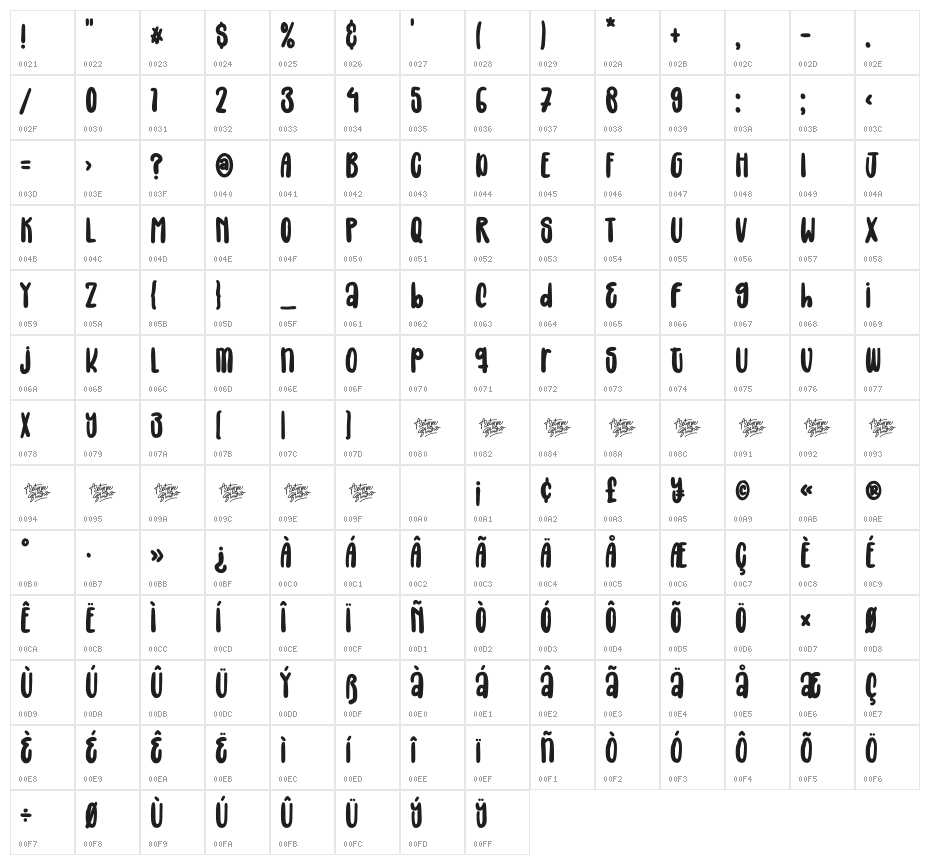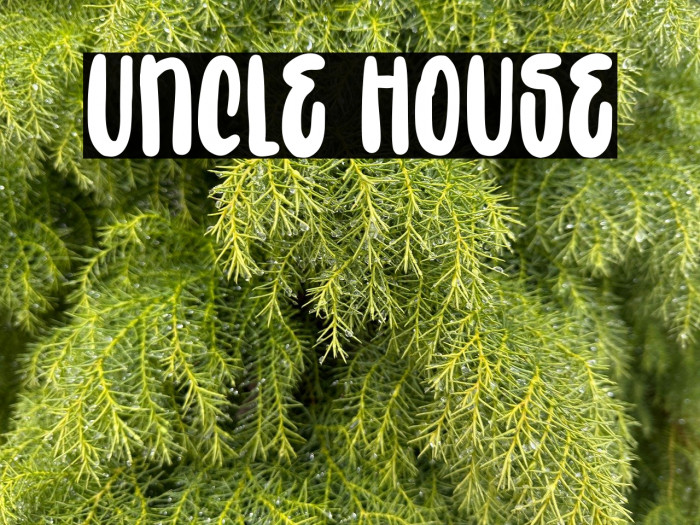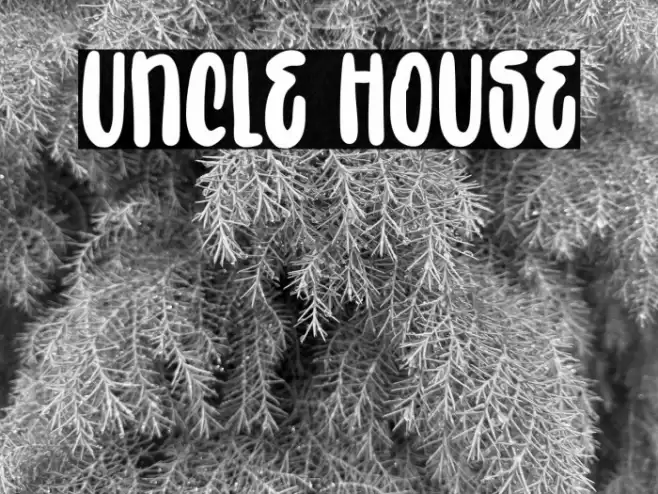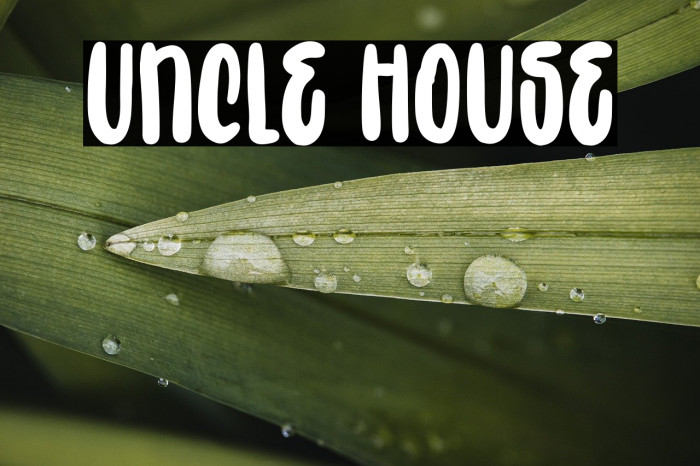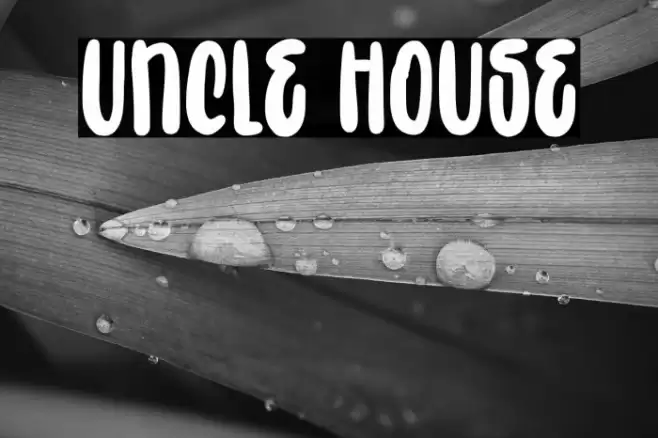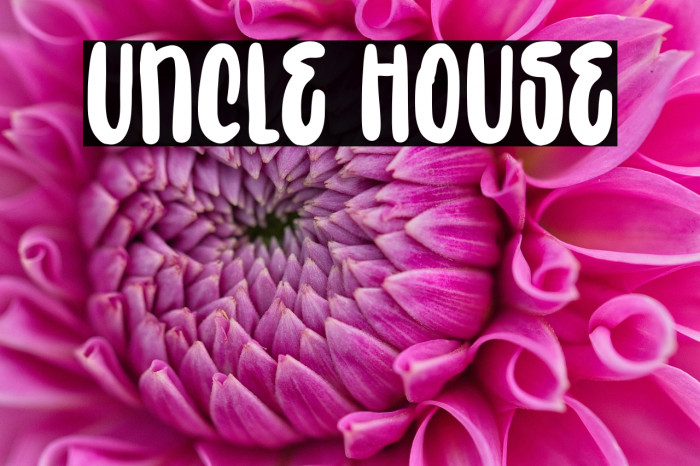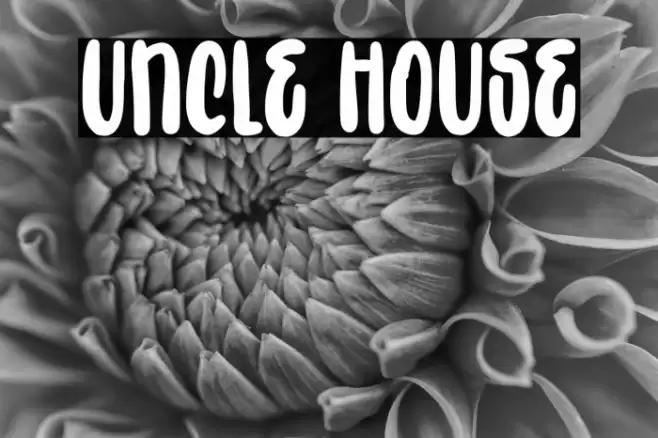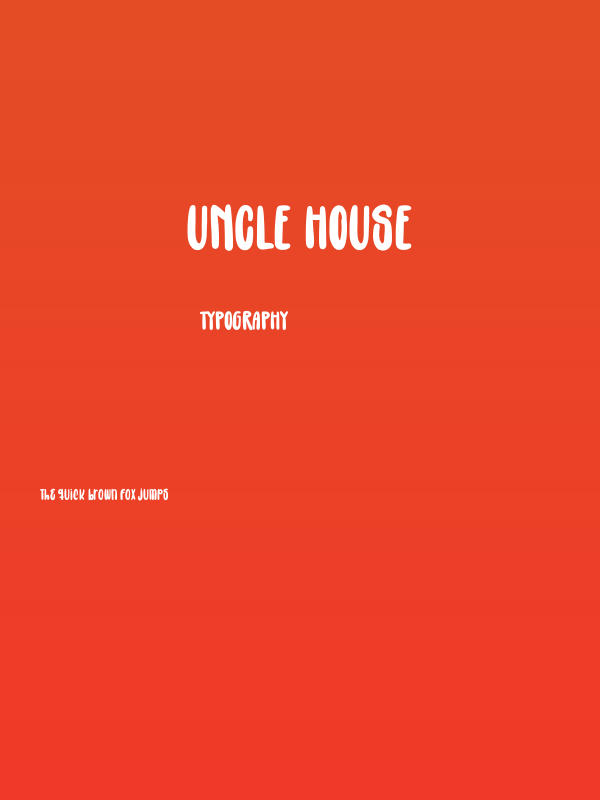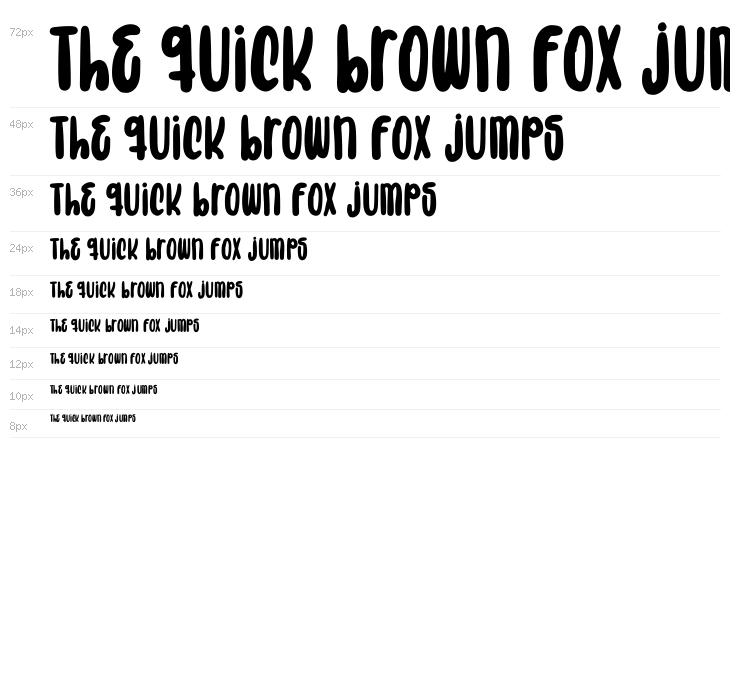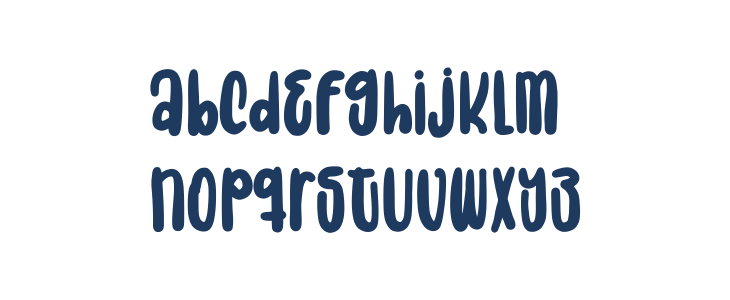
Uncle House Font
Uncle House Description
This font features a bold and playful style with rounded edges and a hand-drawn appearance. The characters are thick and have a consistent weight, giving them a strong presence on the page. The uppercase and lowercase letters maintain a uniform height, contributing to a cohesive look. The numbers and special characters are designed to match the playful aesthetic, making them suitable for creative and informal projects. The overall design is approachable and friendly, ideal for capturing attention in a fun and engaging way.
| Proposed Projects | Ideal for children's books, playful branding, posters, and social media graphics. |